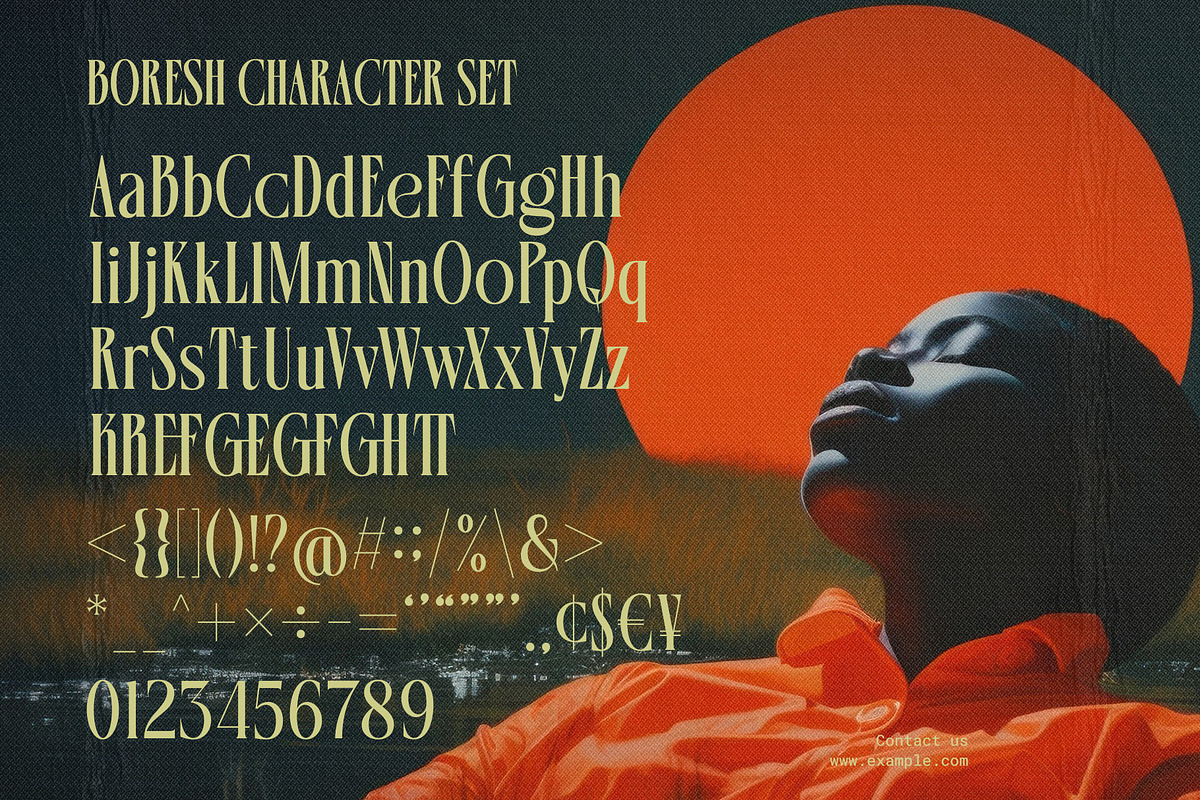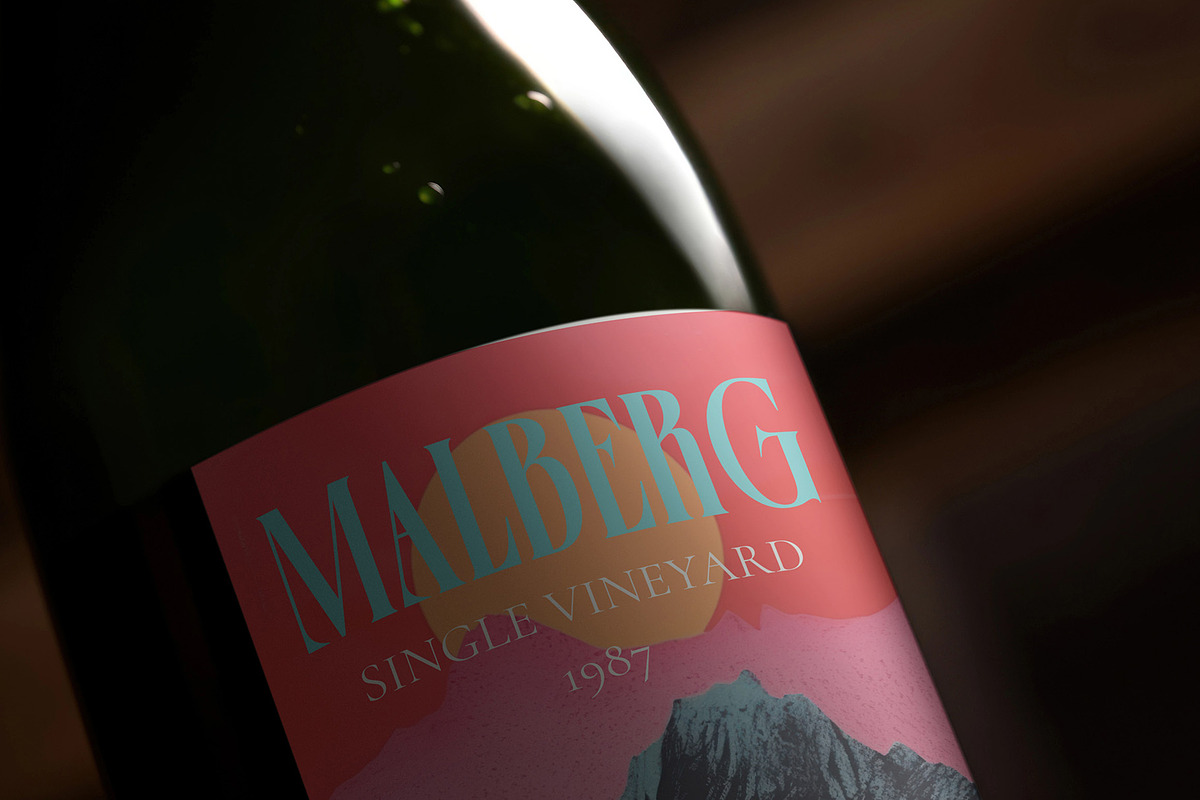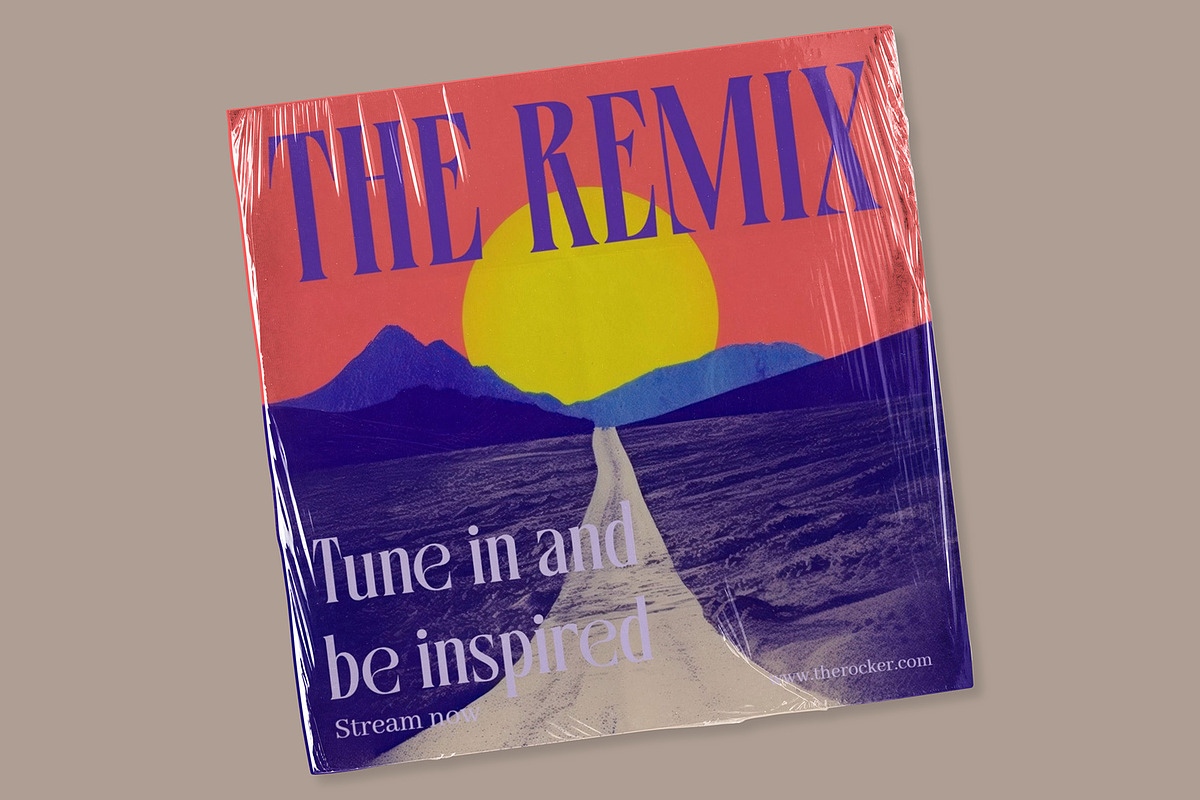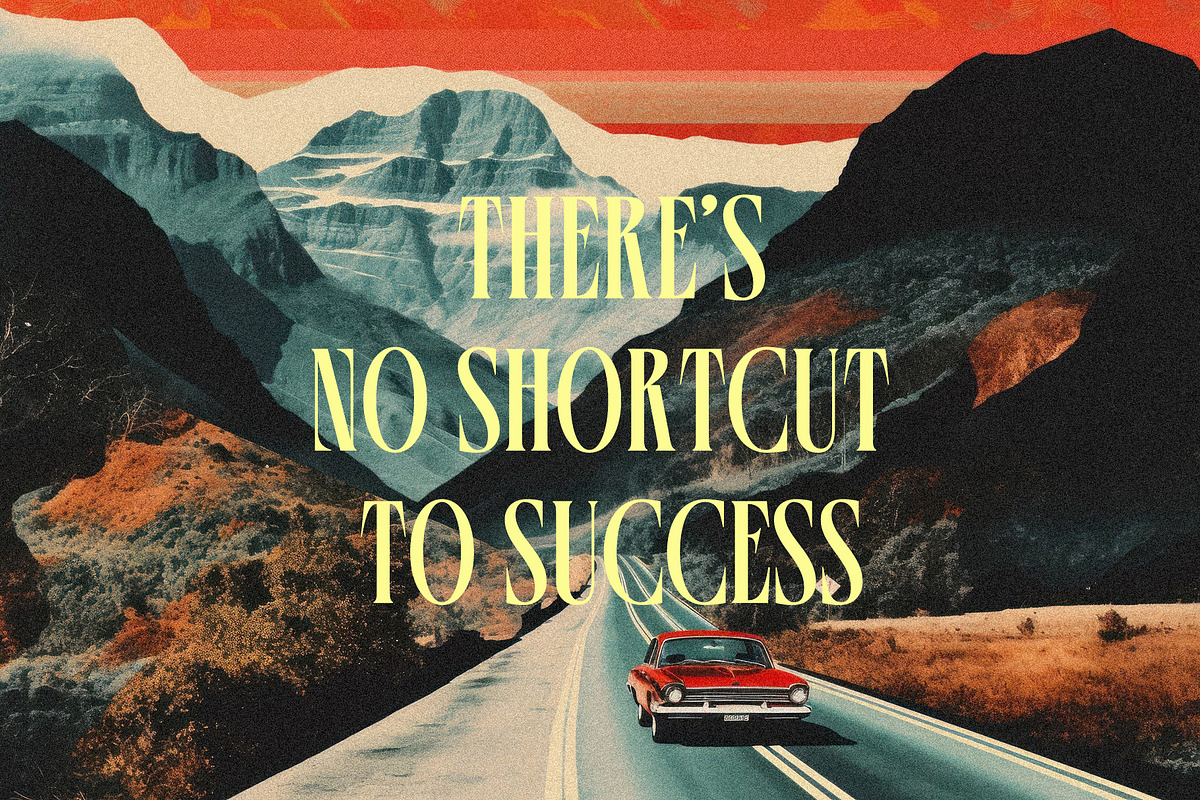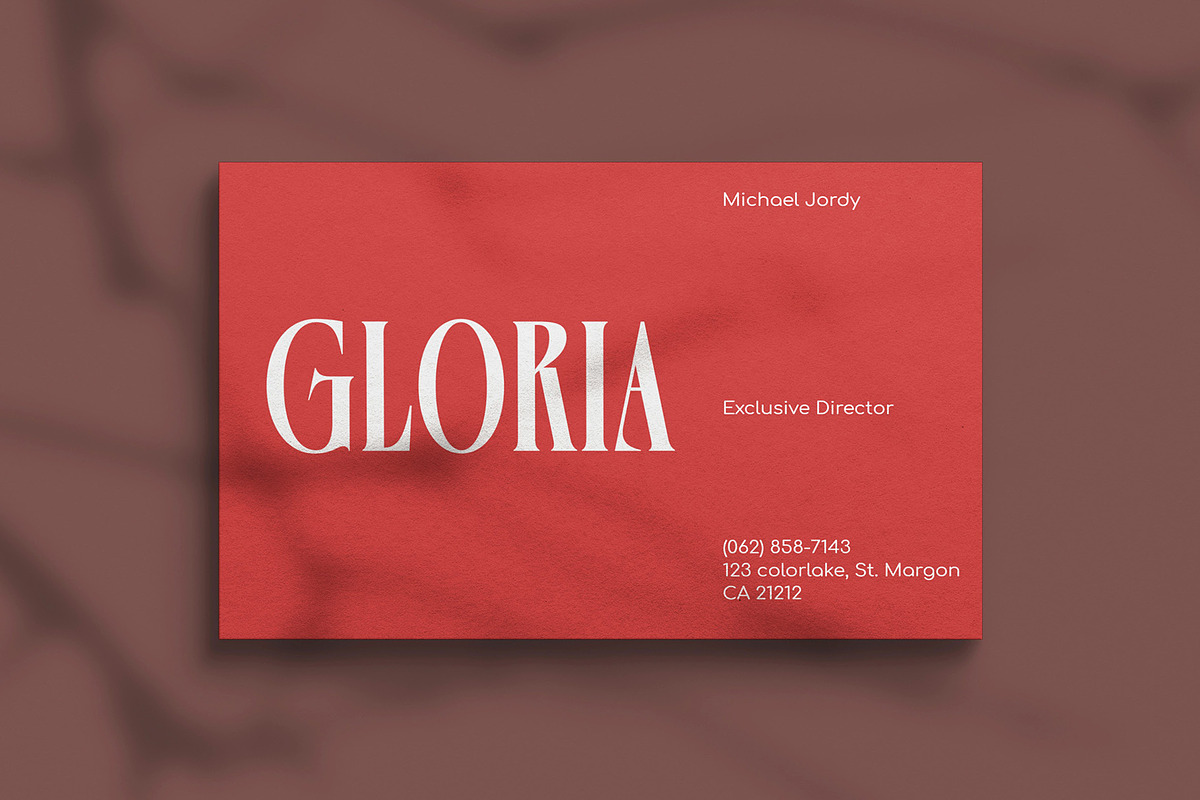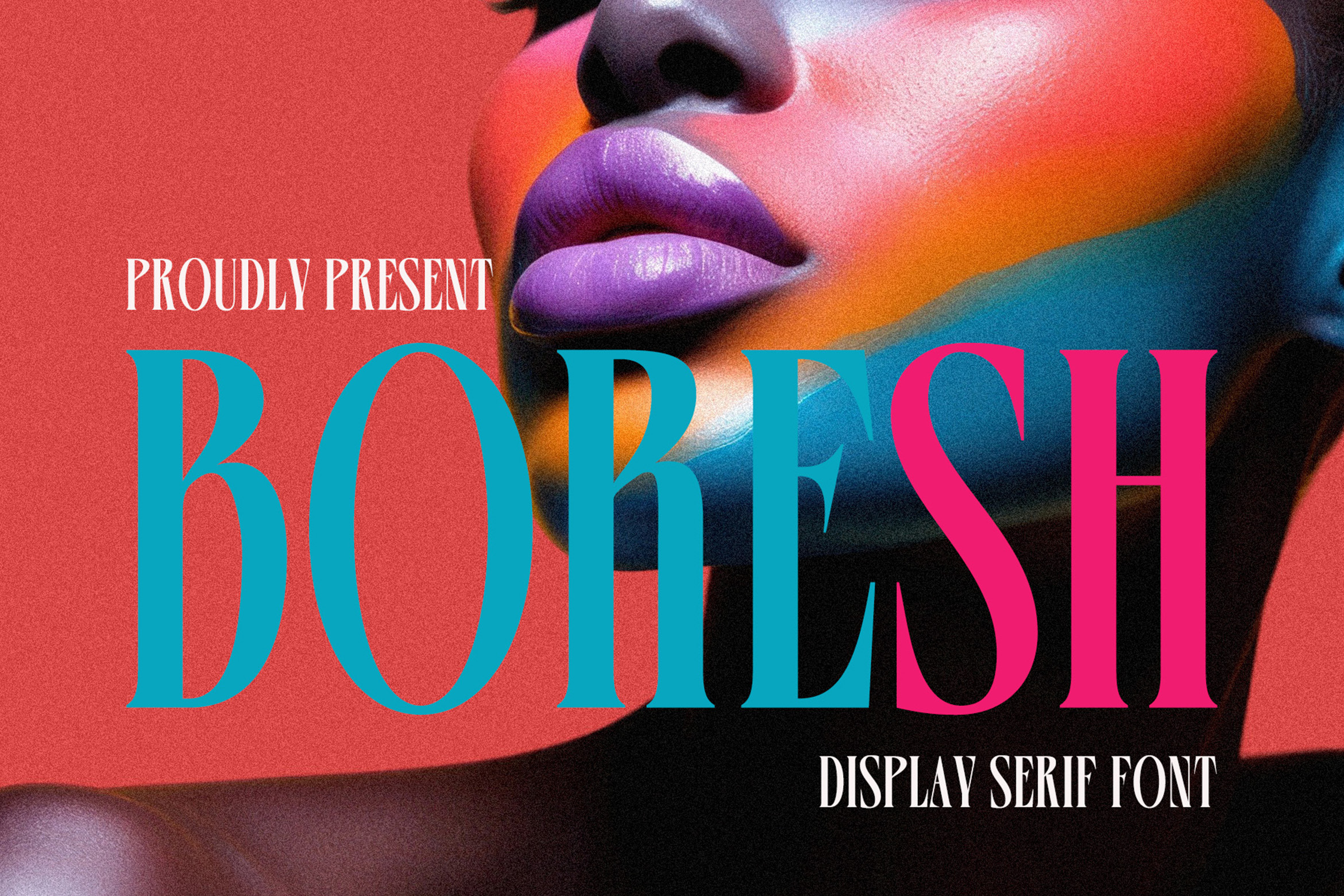
Boresh - Condensed Serif Font
Introducing Boresh - Condensed serif font. Boresh is a Condensed, stylish & elegant serif font, This type of font is very suitable for your various needs such as branding projects, logos, social media posts, advertisements, labels, product packaging, photography, wedding designs, watermarks, invitation product designs, stationery, and any project.